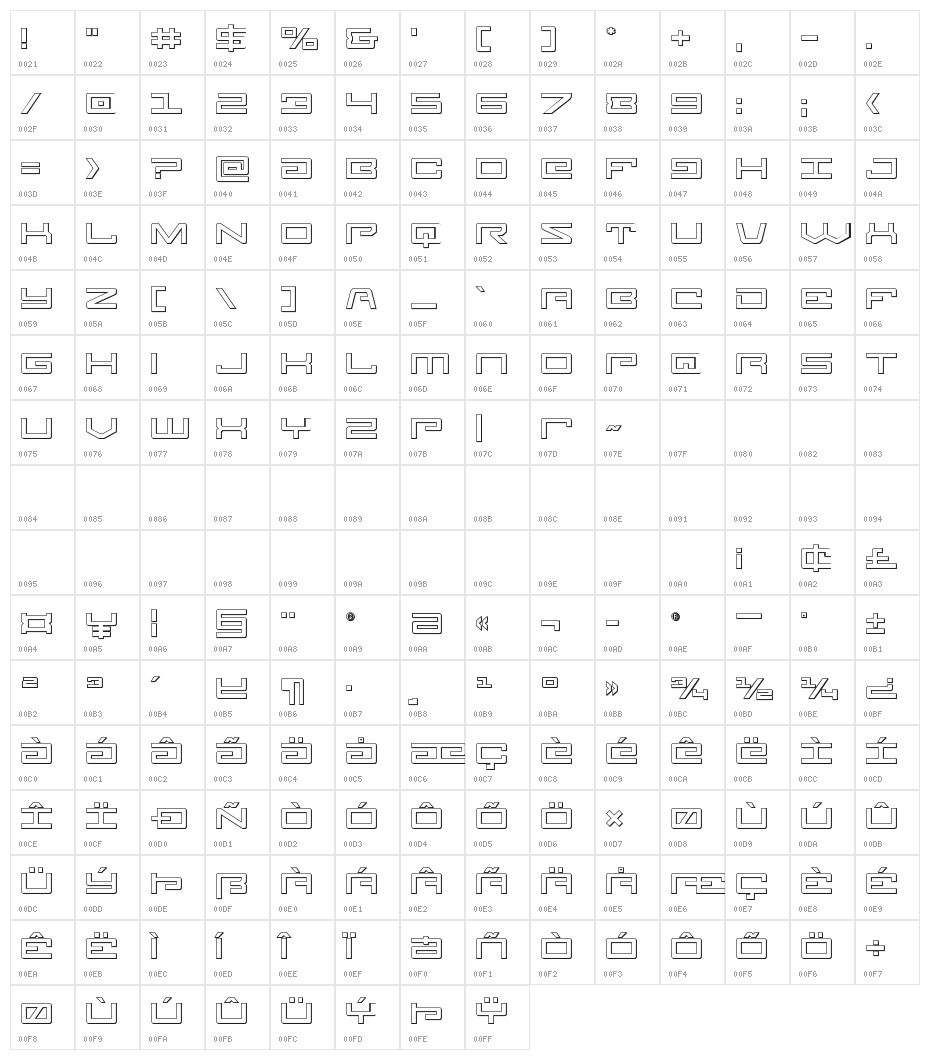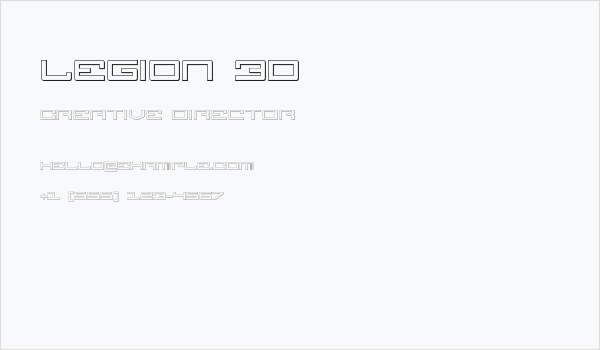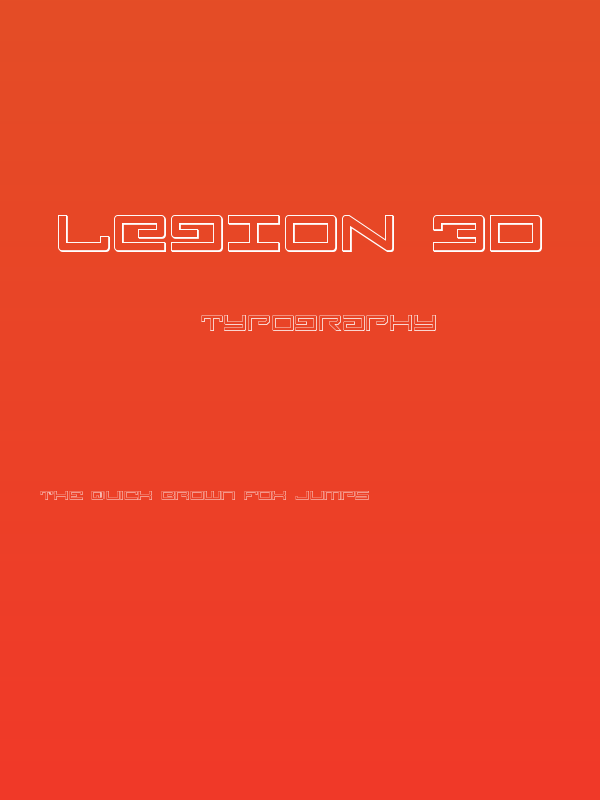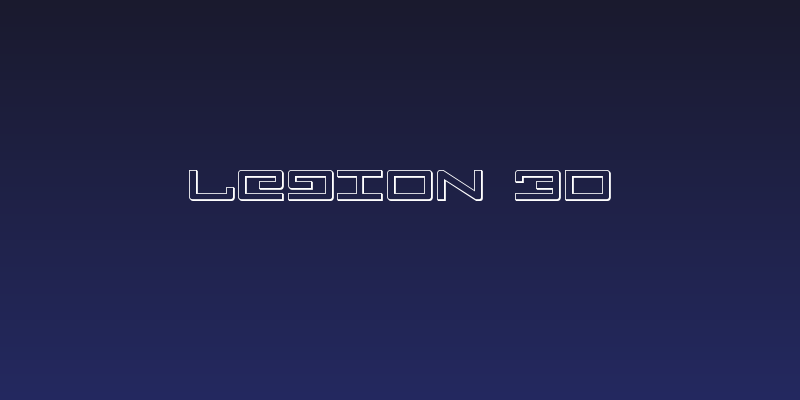
Legion 3D Font
Legion 3D Description
This font features a futuristic and geometric design, characterized by its hollow, outlined letterforms. The characters exhibit a uniform stroke width, creating a clean and modern appearance. The angular and structured shapes give it a tech-inspired aesthetic, making it ideal for projects that require a contemporary and edgy look. The uppercase and lowercase letters maintain a consistent style, with unique elements such as the angular 'R' and the squared-off 'O'. The numerals and special characters follow the same design principles, ensuring a cohesive visual identity across all elements.
| Proposed Projects | Ideal for technology branding, sci-fi movie posters, video game titles, and modern digital interfaces. |